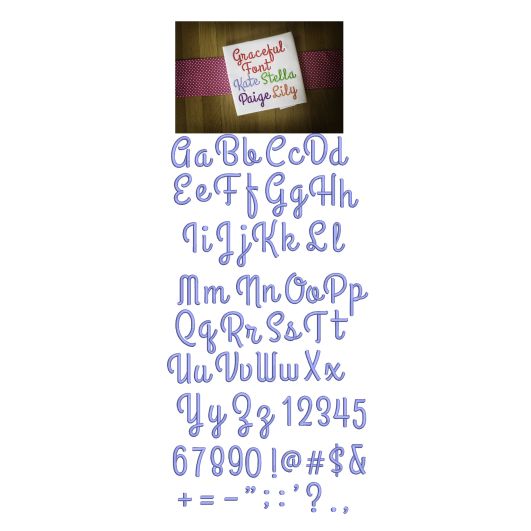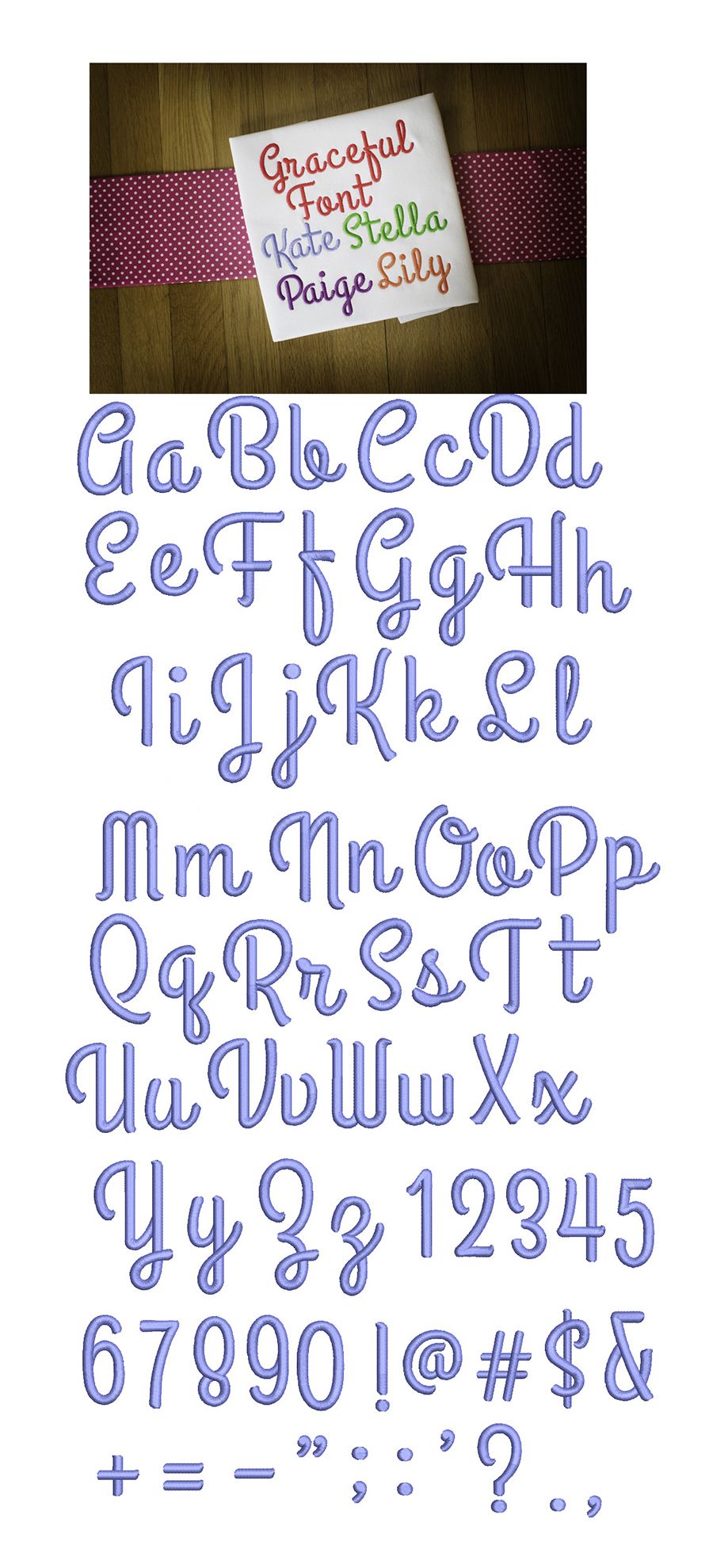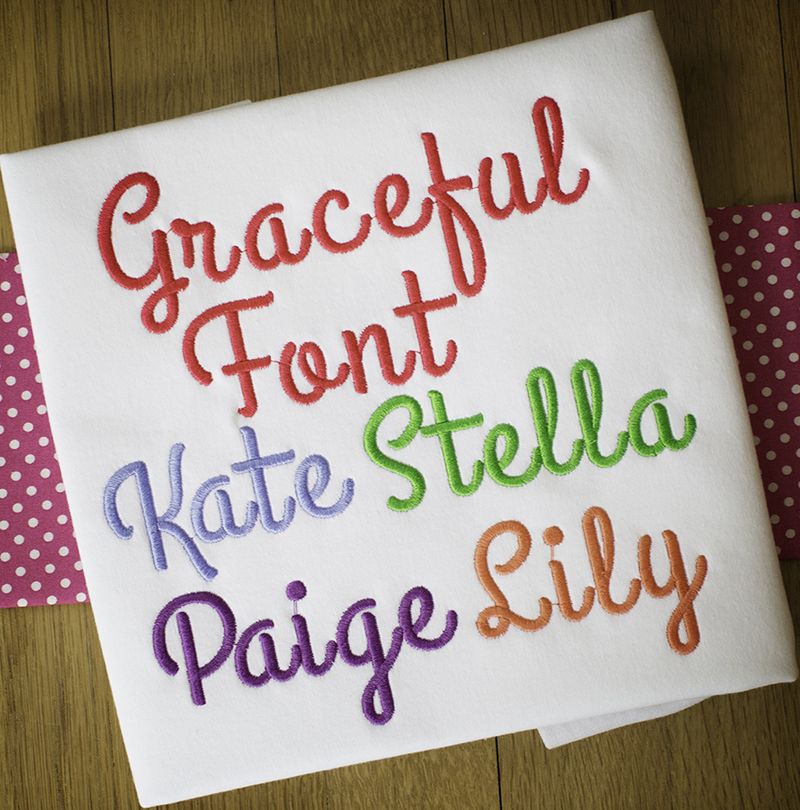
Graceful Satin Stitch Embroidery Font
Super cute and "graceful" upright script font. All of our fonts are 100% manually digitized to ensure the highest quality.